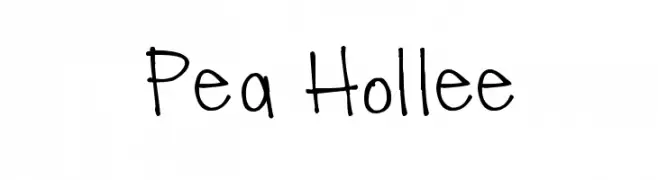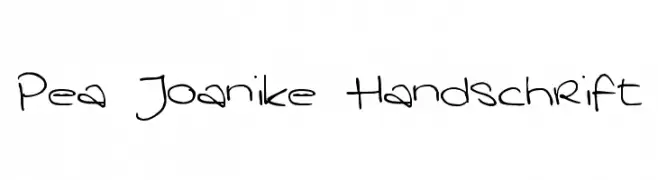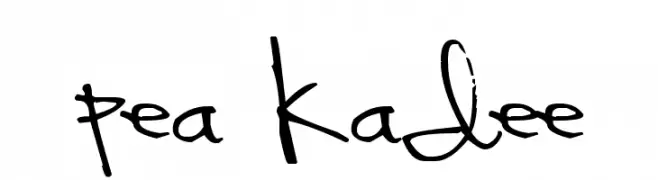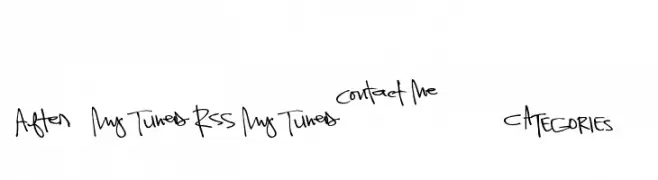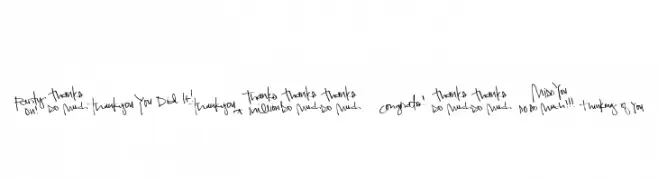
A playful and casual handwritten font with a whimsical touch.
A playful, energetic handwritten font with a casual, spontaneous style.
A playful, casual handwritten font with uneven strokes and a personal touch.
A playful, handwritten font with bold, expressive strokes and a casual style.
A playful, casual handwritten font with fluid, slightly irregular strokes.
A playful, casual handwritten font with dynamic, flowing strokes.
A playful, casual handwritten font with dynamic, irregular strokes.
A playful, handwritten font with a casual and informal style.
A playful, casual handwritten font with a natural, personal touch.
A playful, handwritten font with a whimsical and romantic touch.